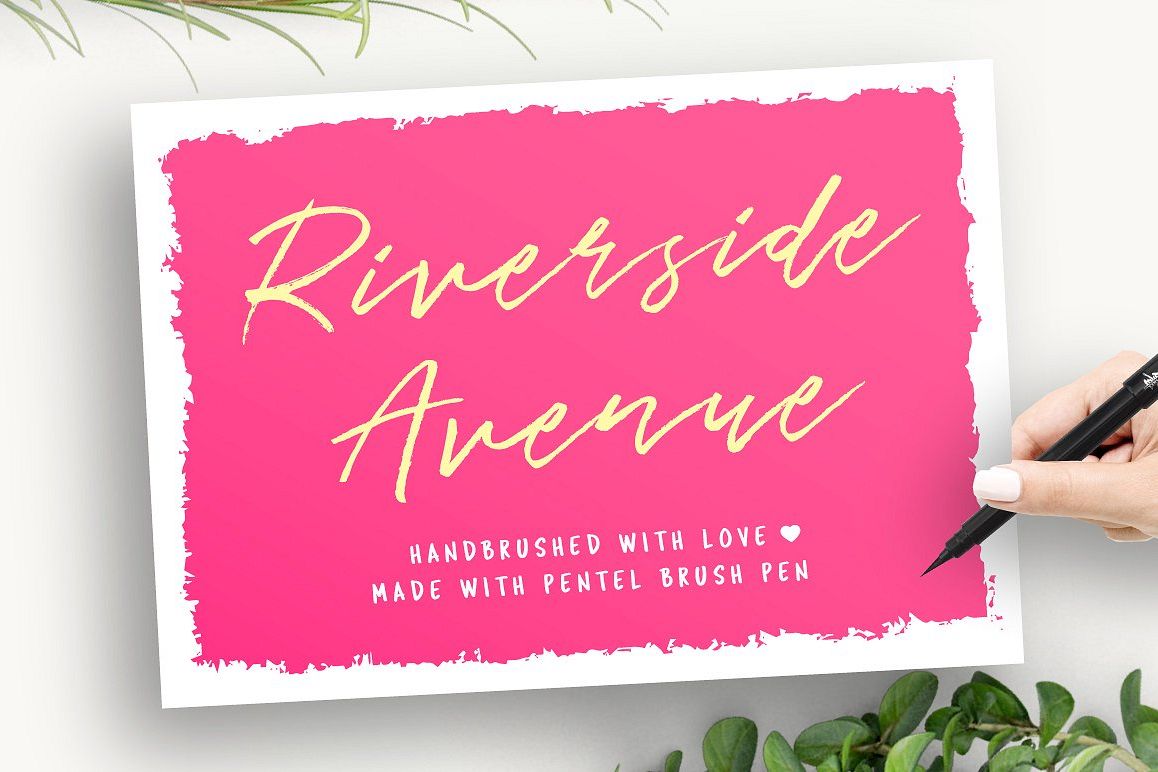
Riverside Avenue
Riverside Avenue is a hand brushed font made with Pentel brush pen. It's authentically hand lettered in my studio with love! The pack includes alternates for lowercase characters to make it look like freshly hand written. Designed to work perfectly in multiple designs like wedding invitations, website logos, Instagram posts and many many more ????
Riverside Avenue includes (total 2 fonts):
1. Riverside Avenue - Upper and lowercase characters, numerals, punctuations and a wide language support. Alternates for lowercase characters. Including both, OTF and TTF filetypes.
2. Riverside Avenue - Alternates for lowercase characters. Including both, OTF and TTF filetypes.